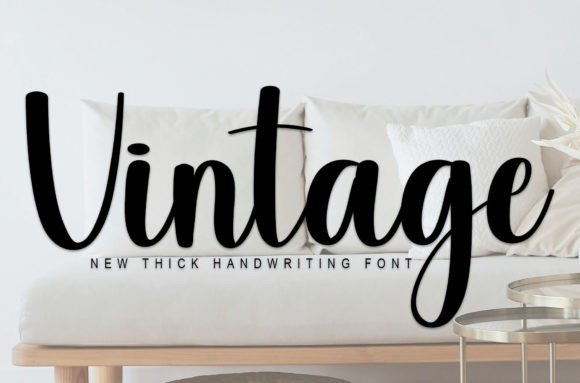
Vintage Font: A Timeless Choice for Beautiful Designs
The world of typography is vast and diverse, with numerous font styles to choose from, each with its unique character and charm. Among these, vintage fonts have gained significant popularity in recent years, particularly for creating beautiful and elegant designs. One such font that has caught the attention of designers and crafty individuals is Vintage, a sweet and neat handwritten font. In this article, we’ll explore the world of vintage fonts, with a focus on the Vintage font, and discuss its features, uses, and benefits.
What are Vintage Fonts?
Vintage fonts are typefaces that are inspired by classic designs from the past. They often feature elegant lines, curves, and ornaments that evoke a sense of nostalgia and sophistication. These fonts are commonly used to create a retro or antique look in designs, which can be perfect for various applications, such as wedding invitations, greeting cards, posters, and more.
Vintage Font Example
Introducing Vintage Font
Vintage is a beautiful, handmade font that exudes a sense of fun and relaxation. Its sweet and neat design makes it an ideal choice for creating stunning wedding invitations, cards, and other designs that require a touch of elegance. The font features flowing lines, subtle imperfections, and a charming aesthetic that is sure to capture the hearts of designers and readers alike.
Key Features of Vintage Font
• Handwritten design: Vintage font boasts a beautiful, handmade design that gives it a personal and unique touch.
• Elegant lines and curves: The font features smooth, flowing lines and curves that create a sense of sophistication and elegance.
• Fun and relaxing: Despite its elegance, Vintage font has a playful and carefree vibe that makes it perfect for designs that require a touch of whimsy.
• Versatile: This font can be used for a wide range of applications, from wedding invitations and cards to posters, packaging, and more.
Uses of Vintage Font
Vintage font is an incredibly versatile typeface that can be used for various design projects. Here are some popular uses of this beautiful font:
• Wedding invitations: The font’s elegant design makes it perfect for creating stunning wedding invitations that set the tone for a beautiful and memorable event.
• Greeting cards: Vintage font is ideal for creating heartfelt and personalized greeting cards for special occasions, such as birthdays, anniversaries, and holidays.
• Posters and flyers: The font’s bold and playful design makes it suitable for creating eye-catching posters and flyers for events, promotions, and products.
• Branding and packaging: Vintage font can be used to create unique and memorable brand identities, as well as packaging designs that stand out on store shelves.
Vintage Font Wedding Invitation
Benefits of Using Vintage Font
There are several benefits to using Vintage font in your designs:
• Unique and distinctive: Vintage font offers a fresh and distinctive look that sets it apart from more traditional fonts.
• Elegant and sophisticated: The font’s elegant design makes it perfect for creating high-end designs that exude sophistication and luxury.
• Easy to read: Despite its ornate design, Vintage font is surprisingly easy to read, making it suitable for body text and other applications where legibility is crucial.
• Customizable: As a digital font, Vintage can be easily customized to suit your design needs, including adjusting font sizes, colors, and styles.
Tips for Using Vintage Font Effectively
To get the most out of Vintage font, here are some tips to keep in mind:
• Use it sparingly: While Vintage font is beautiful, it’s best to use it sparingly to avoid overwhelming your design. Use it for headings, titles, or key messages to create visual impact.
• Pair it with complementary fonts: Combine Vintage font with complementary fonts to create visual interest and hierarchy in your design.
• Experiment with colors and textures: Don’t be afraid to experiment with different colors and textures to add depth and dimension to your design.
• Pay attention to legibility: While Vintage font is easy to read, make sure to test it in different contexts to ensure it remains legible.
Vintage Font Pairing
Vintage font is a beautiful and versatile typeface that offers a unique blend of elegance, sophistication, and playfulness. Its sweet and neat design makes it perfect for creating stunning wedding invitations, cards, and other designs that require a touch of beauty. With its wide range of applications, benefits, and customization options, Vintage font is an excellent choice for designers and crafty individuals looking to add a touch of vintage charm to their designs.
Whether you’re a seasoned designer or just starting out, Vintage font is definitely worth exploring. So why not give it a try and see how it can elevate your designs to the next level?